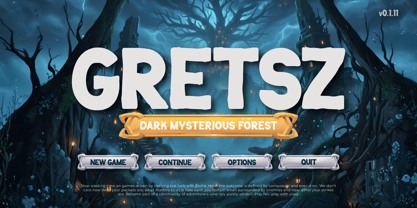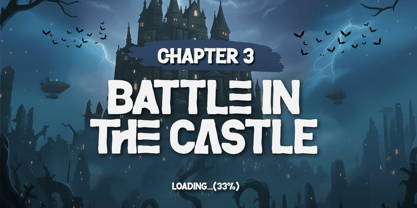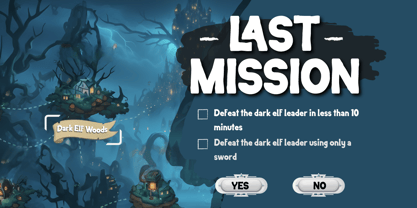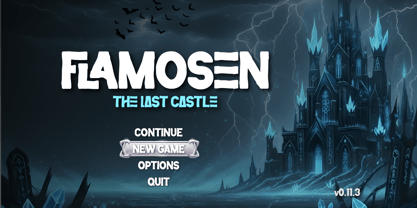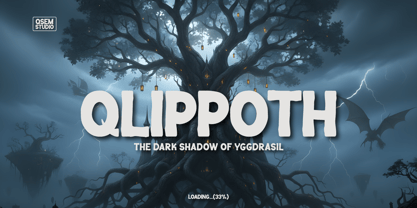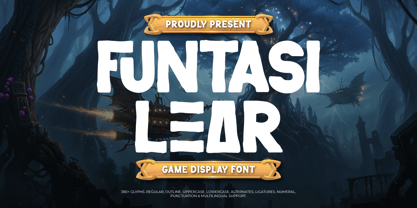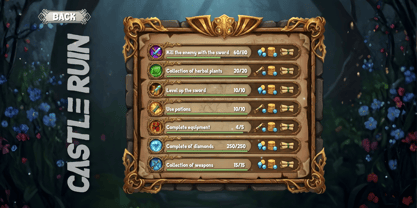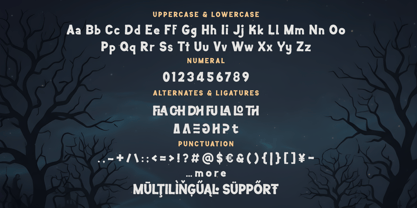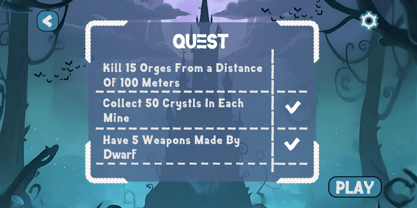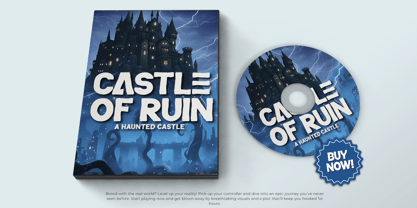
Funtasi Lear is a Game Display Font typeface designed for fantasy and adventure-themed design needs. It features bold and firm letterforms, providing a solid presence for main headlines and visual identities. Its characteristics are crafted to support projects related to RPG worlds, legendary elements, and other adventure narratives.
The solid structure ensures clear readability across various display sizes. The design combines dynamic curves with distinct angles, balancing decorative style and technical function. This makes it a practical choice for both game interfaces (Game UI) and print media requiring clear text visibility.
As a Fantasy Game Font, Funtasi Lear is well-suited for game titles, promotional posters, event banners, and branding materials. Its ability to emphasize main text helps clarify the visual hierarchy within a design layout. This font offers a solution for designers needing typography with consistent and professional character for the entertainment and creative industries.
- All glyphs and Feature
- Multilingual Support: Fully supports 85+ languages, including:
Afrikaans, Albanian, Asu, Basque, Bemba, Bena, Breton, Catalan, Chiga, Cornish, Croatian, Czech, Danish, Dutch, Embu, English, Esperanto, Estonian, Filipino, Finnish, French, Friulian, Galician, Gusii, Hungarian, Indonesian, Irish, Italian, Kabuverdianu, Kalenjin, Kamba, Kikuyu, Kinyarwanda, Latvian, Lithuanian, Lower Sorbian, Luo, Luxembourgish, Luyia, Machame, Makhuwa-Meetto, Makonde, Malagasy, Maltese, Manx, Meru, Morisyen, North Ndebele, Norwegian Bokmål, Norwegian Nynorsk, Nyankole, Oromo, Polish, Portuguese, Quechua, Romanian, Romansh, Rombo, Rundi, Rwa, Samburu, Sango, Sangu, Scottish Gaelic, Sena, Serbian, Shambala, Shona, Slovak, Slovenian, Soga, Somali, Spanish, Swahili, Swedish, Swiss German, Taita, Teso, Turkish, Upper Sorbian, Uzbek (Latin), Volapük, Vunjo, Walser, Zulu.